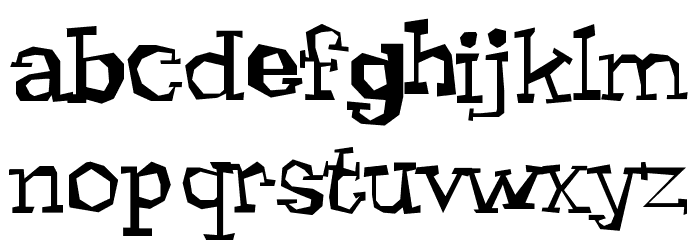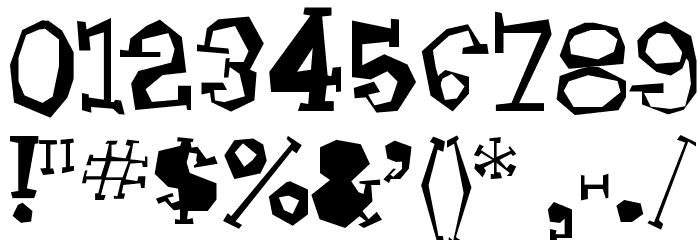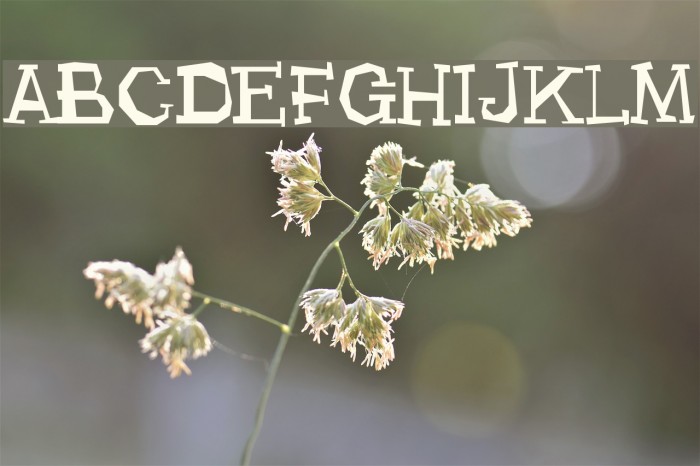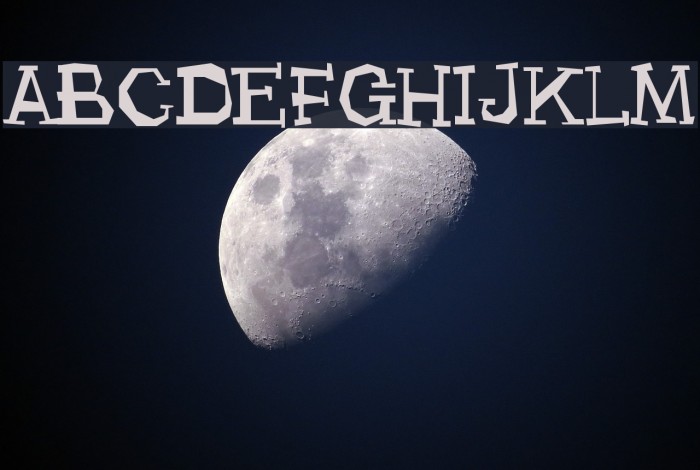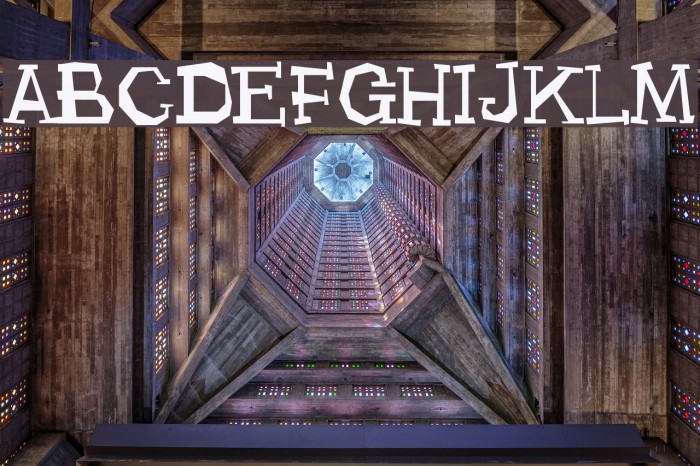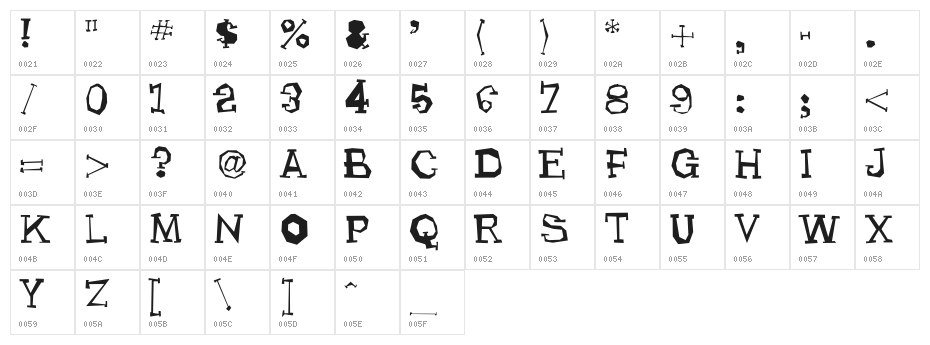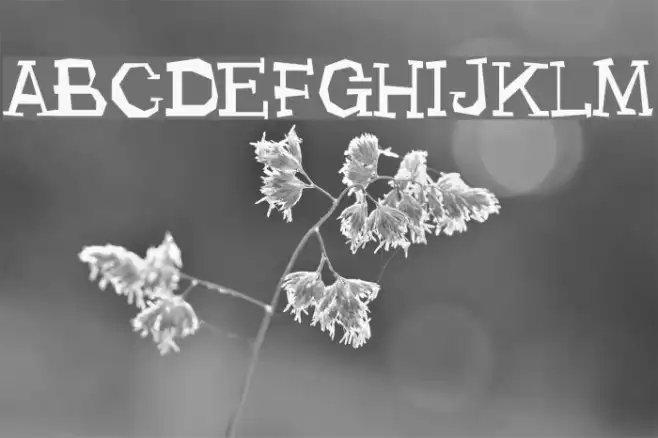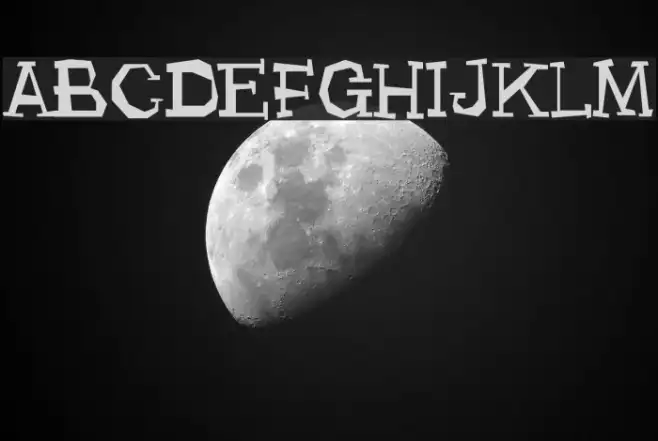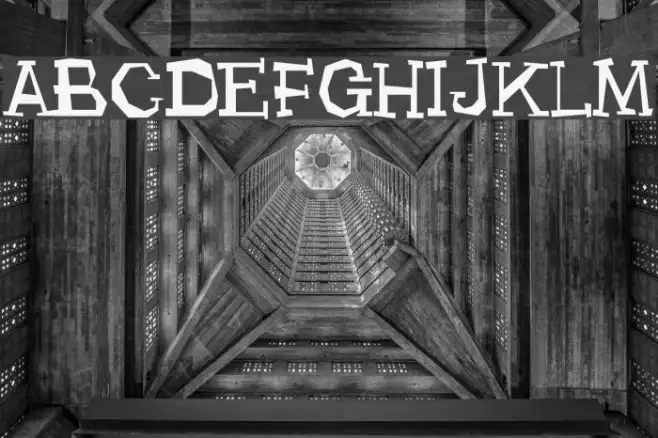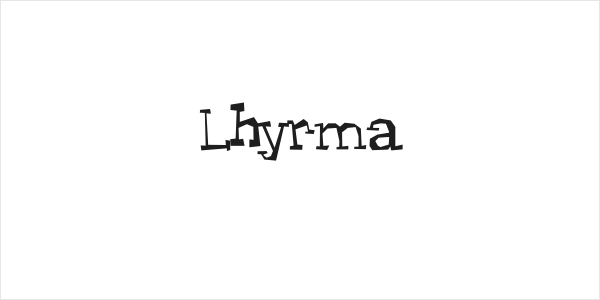
Lhyrma Font
This font features a highly decorative and irregular style, characterized by its jagged and uneven letterforms. The uppercase and lowercase letters exhibit a playful, almost chaotic appearance, with varying stroke widths and angles that create a dynamic and energetic feel. The numbers and special characters follow the same quirky design, adding to the overall whimsical nature of the font. Its unique aesthetic makes it stand out, making it suitable for projects that require a bold and unconventional look.
A decorative and irregular font with jagged, playful letterforms.
- Proposed Projects: Ideal for creative projects such as posters, album covers, and artistic branding that seek to capture attention with a bold and unconventional style.